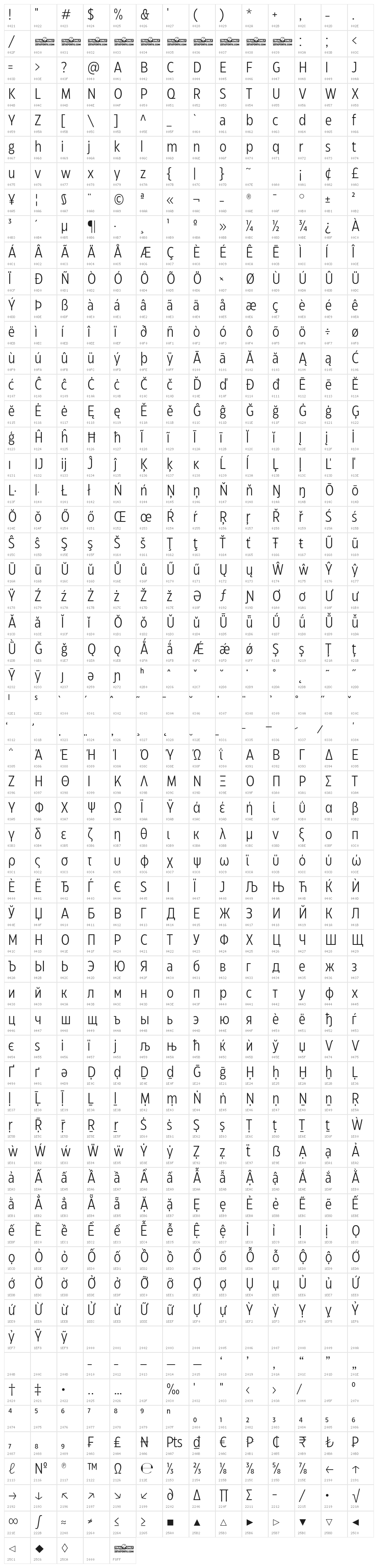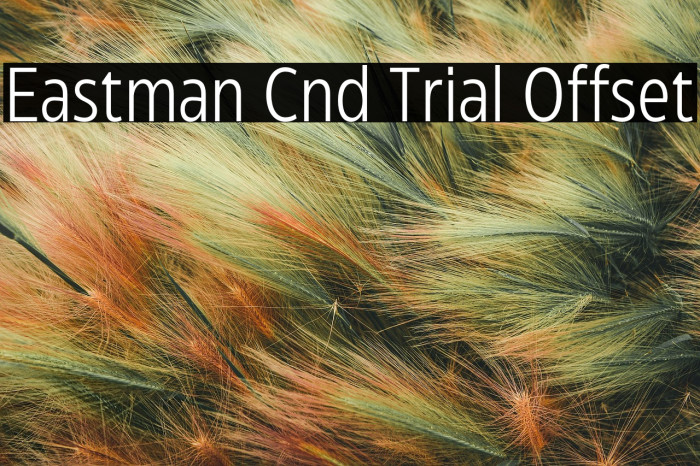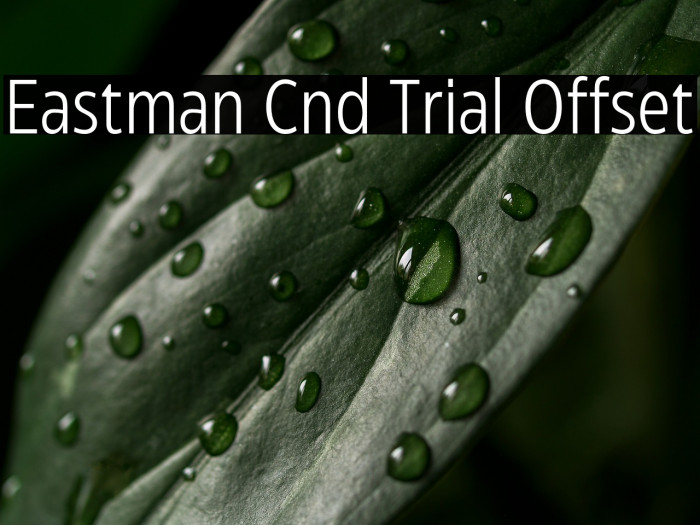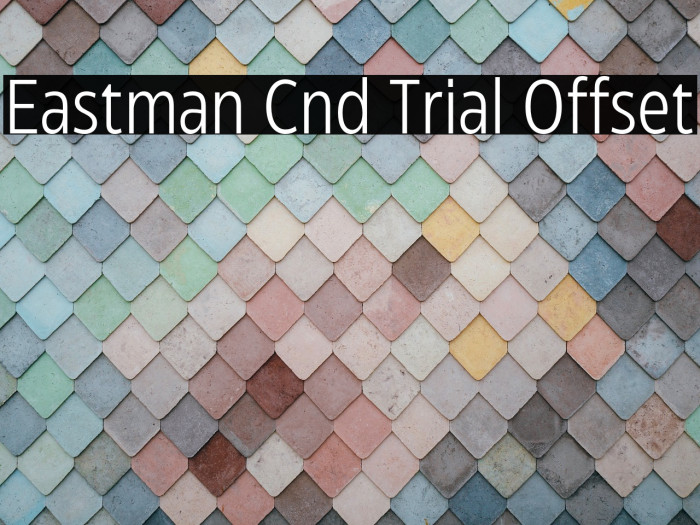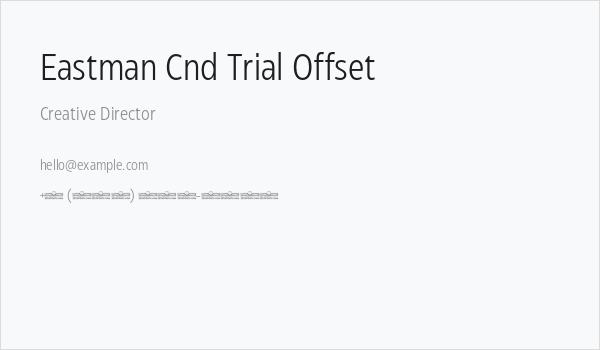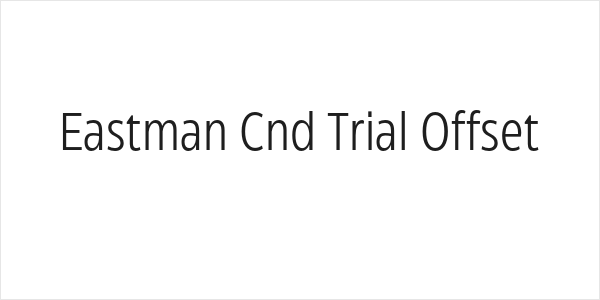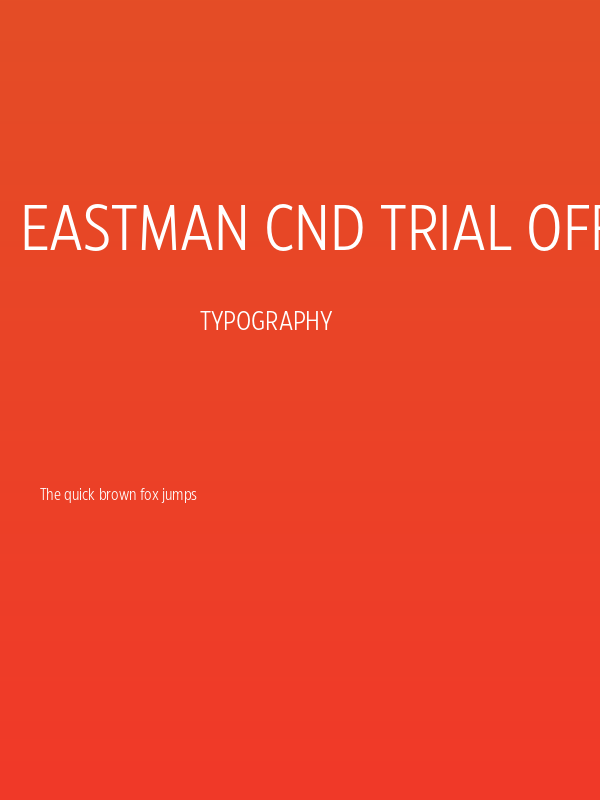
Eastman Cnd Trial Offset Font
Eastman Cnd Trial Offset Description
This font presents a clean and modern sans-serif style with a condensed width, making it ideal for space-efficient text. The characters are uniformly designed with a consistent stroke width, offering a sleek and professional appearance. The uppercase and lowercase letters are well-proportioned, and the numerals are clear and legible. The special characters are distinct, maintaining the overall aesthetic of the font. Its simplicity and clarity make it versatile for various design applications.
| Proposed Projects | Ideal for branding, editorial design, web design, and advertising where space is limited. |